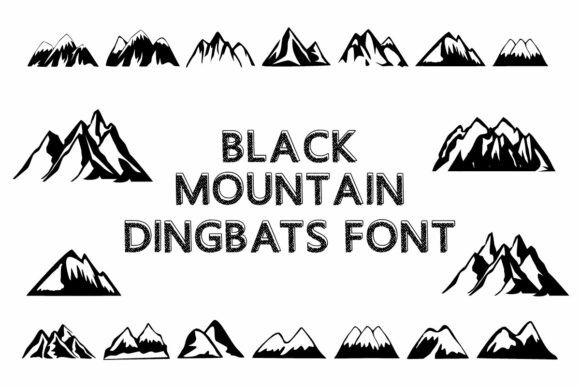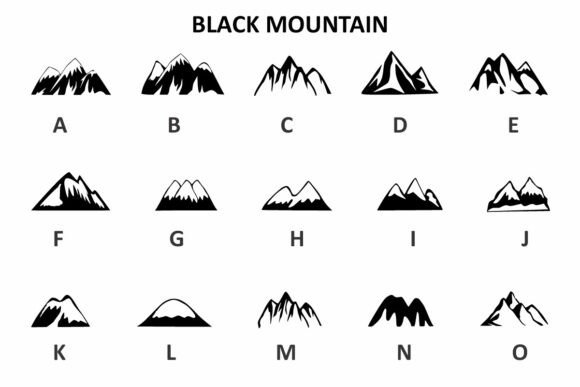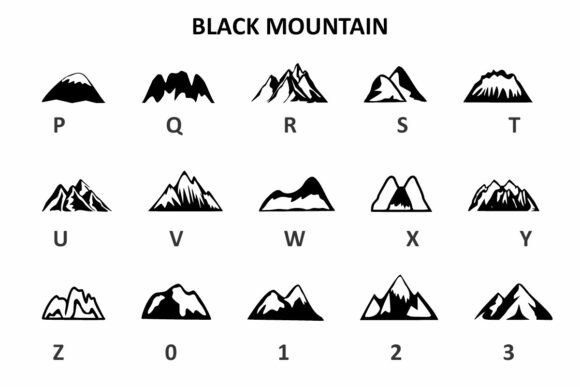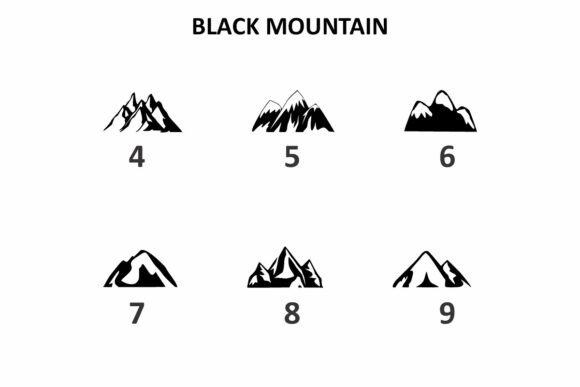
Black Mountain Font
Black Mountain is a dingbats font. You can use it for taking notes, writing a diary, or making greeting cards. However, you can still use it for other designs, such as logo, craft, cover book, banners, content, cards, shirts, stationery, social media posts, and more!